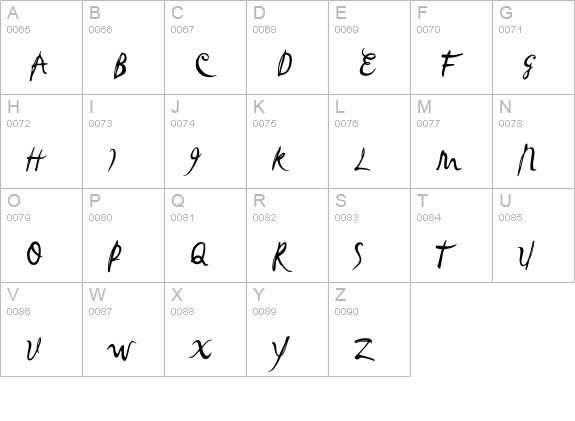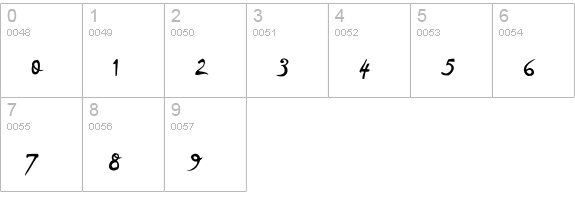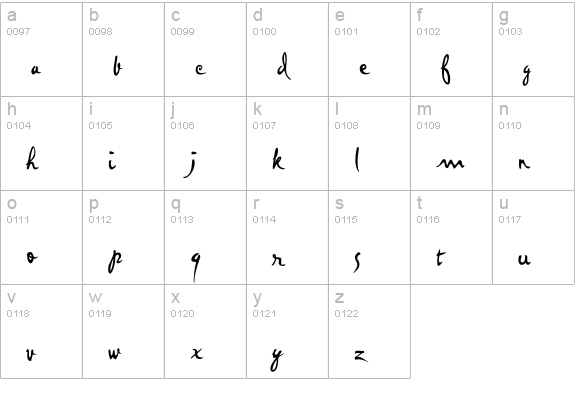
Zachery font is a versatile and modern typeface that exudes elegance and sophistication. With its clean lines and stylish curves, Zachery is perfect for a wide range of design projects, from branding and logo design to editorial layouts and web design. This sleek font is sure to make your text stand out and grab the attention of your audience. The best part about Zachery font is that it is completely free to download at FontsMarket.com. This means that you can elevate your designs without having to spend a dime. Whether you're a seasoned designer looking for a fresh new font to add to your collection or a beginner looking to experiment with typography, Zachery font is the perfect choice for all your creative endeavors. Download Zachery font today and take your designs to the next level!